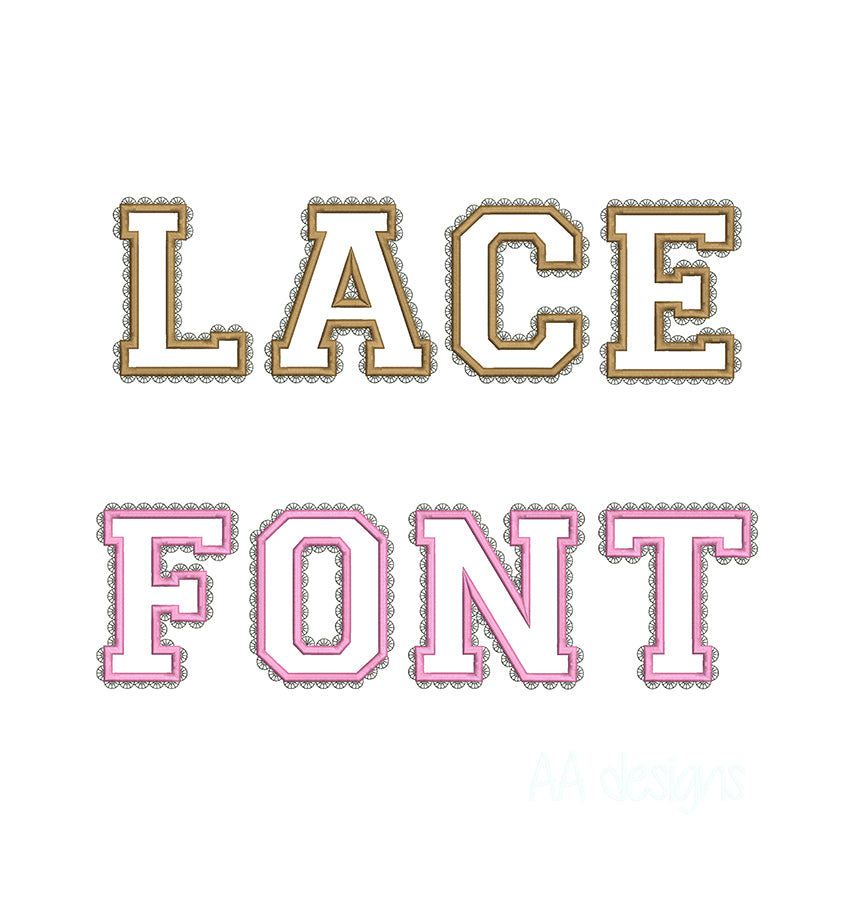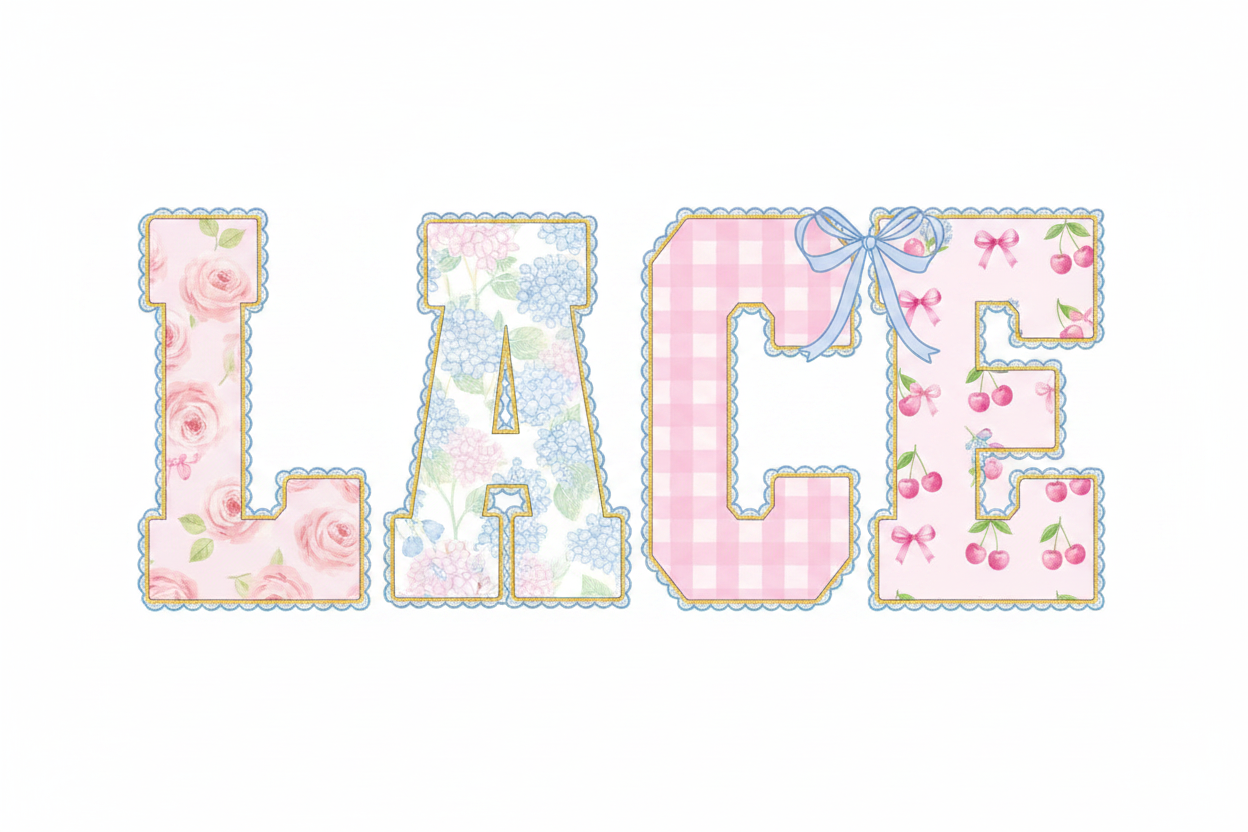
Introducing the Lace Varsity Applique Embroidery Font — a stunning varsity block letter font with intricate scalloped lace border edges. Perfect for adding a feminine, elegant touch to apparel, accessories, towels, baby items, and personalized gifts.
Each letter features a bold varsity block shape outlined with delicate lace scallop detailing — a beautiful combination of sporty and feminine styles that works beautifully on hats, shirts, tote bags, and more.
- Perfect for applique projects on apparel, hats, bags & baby items